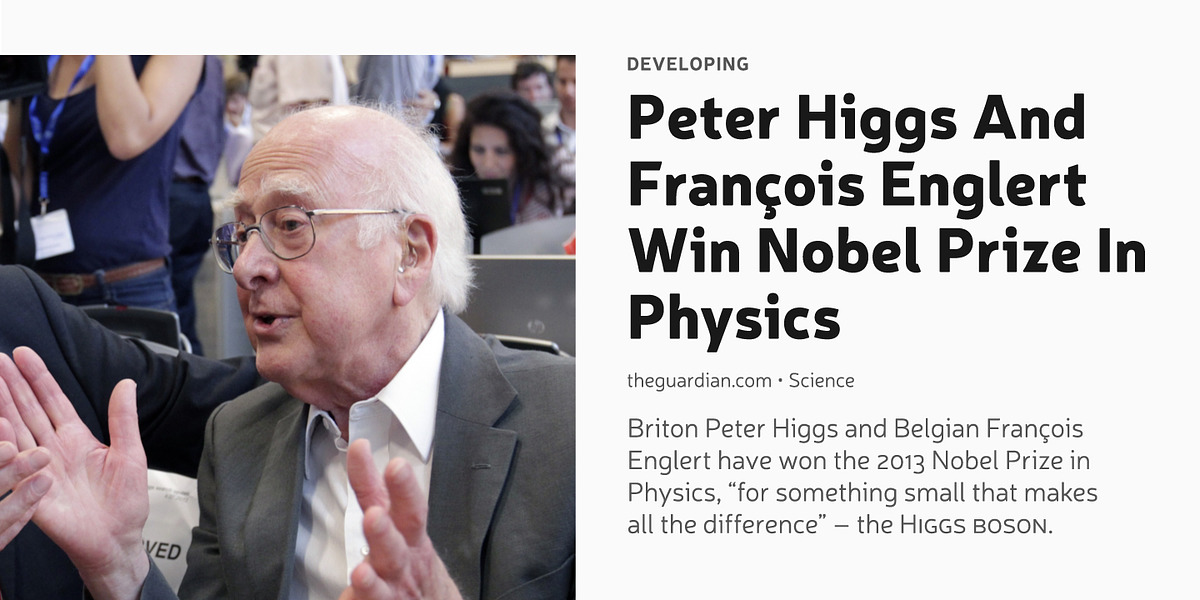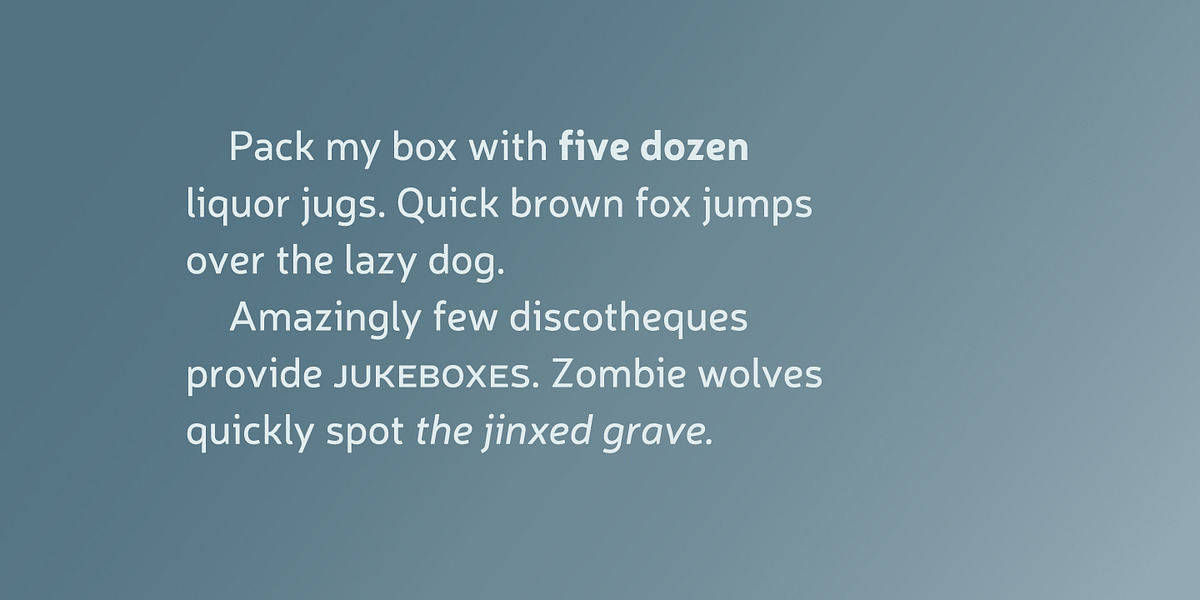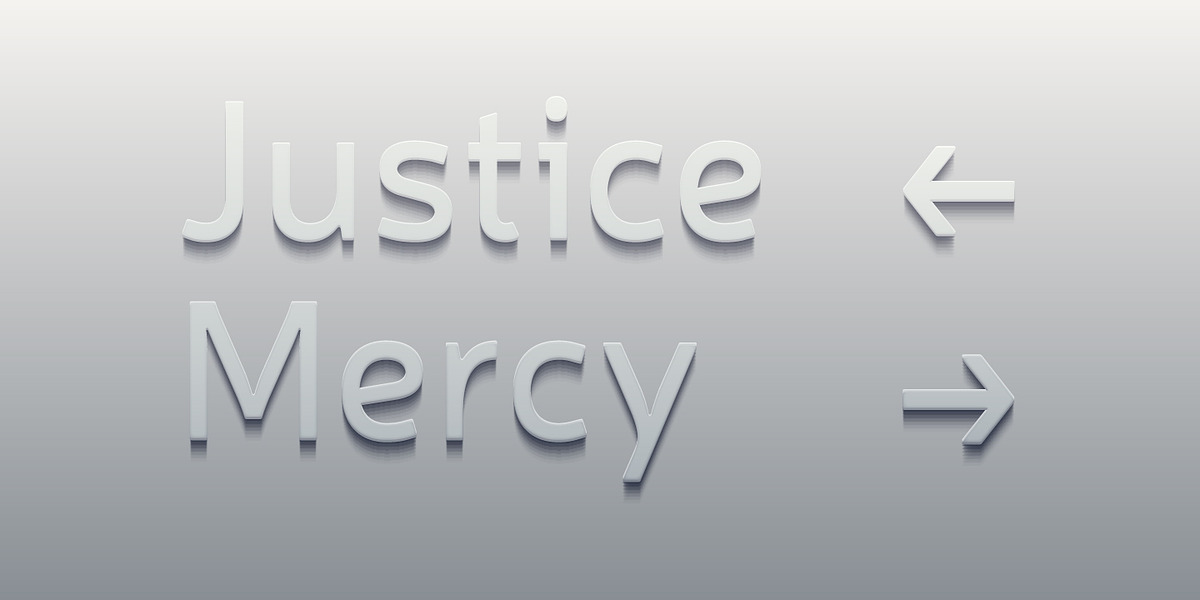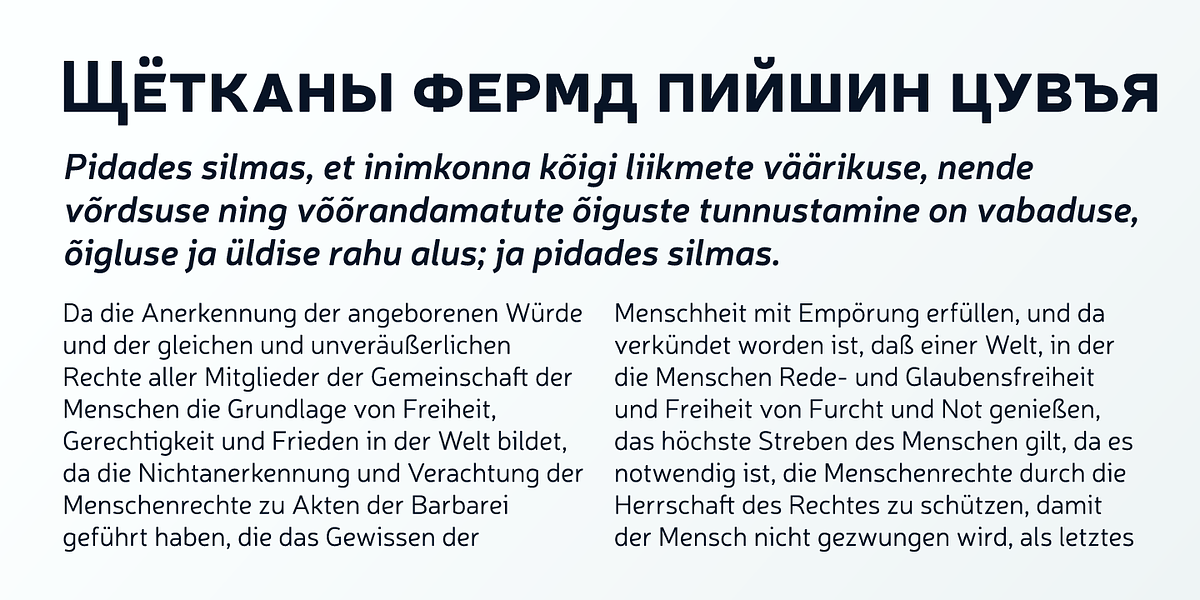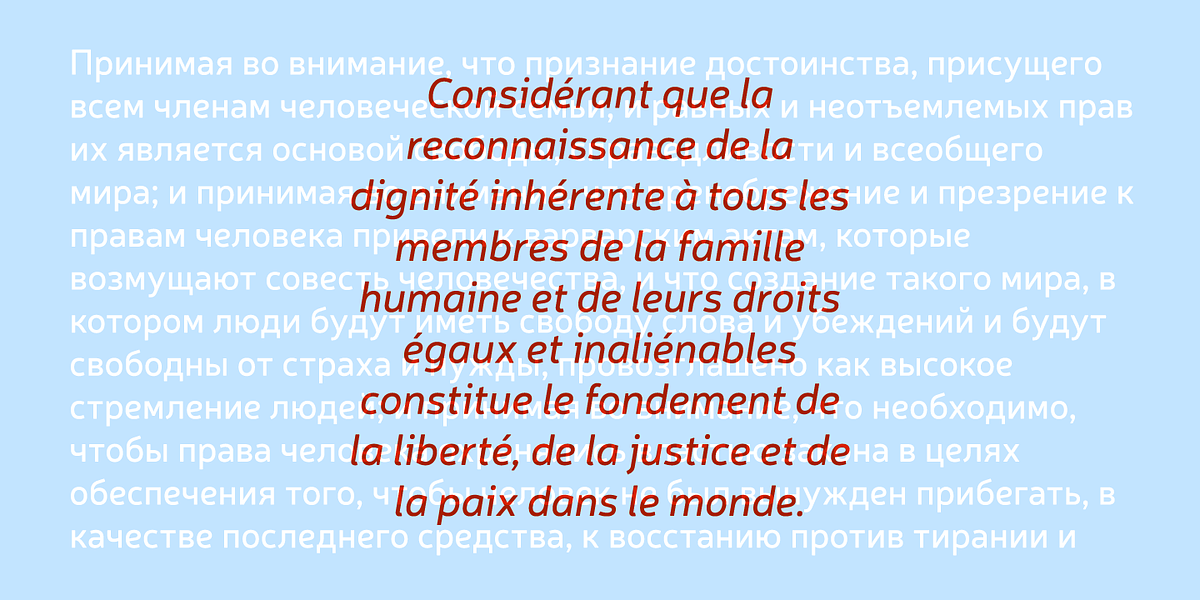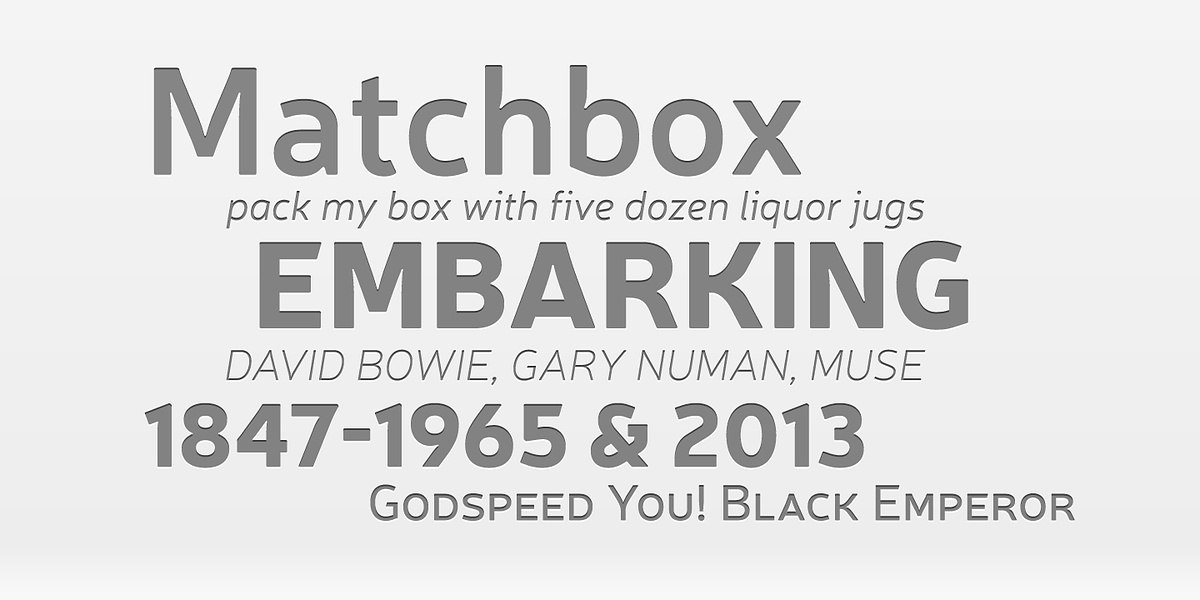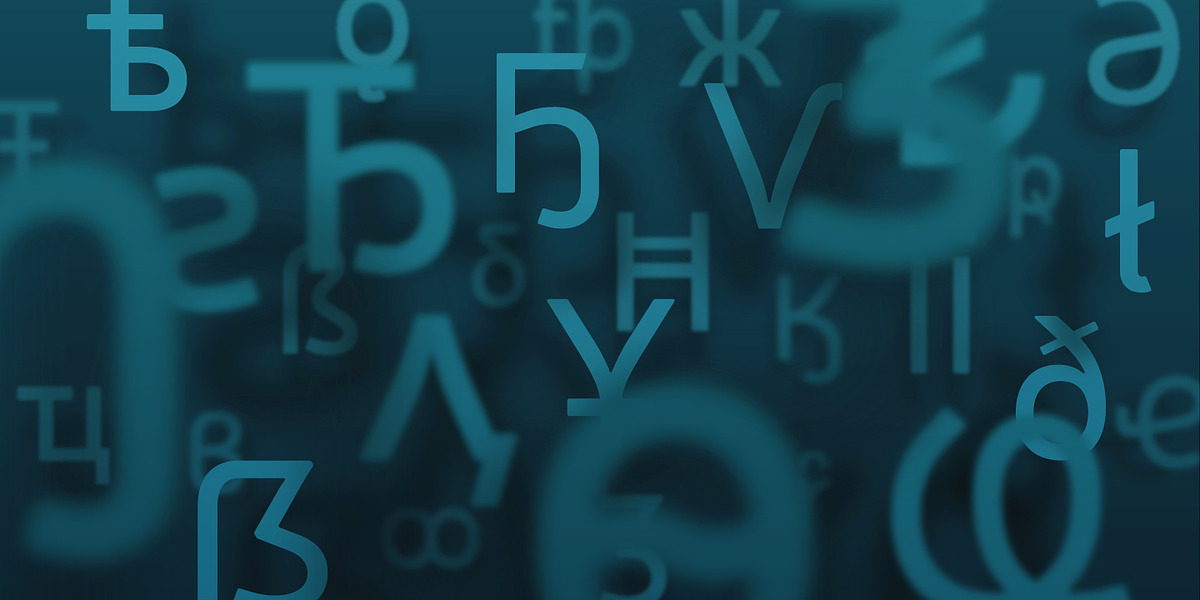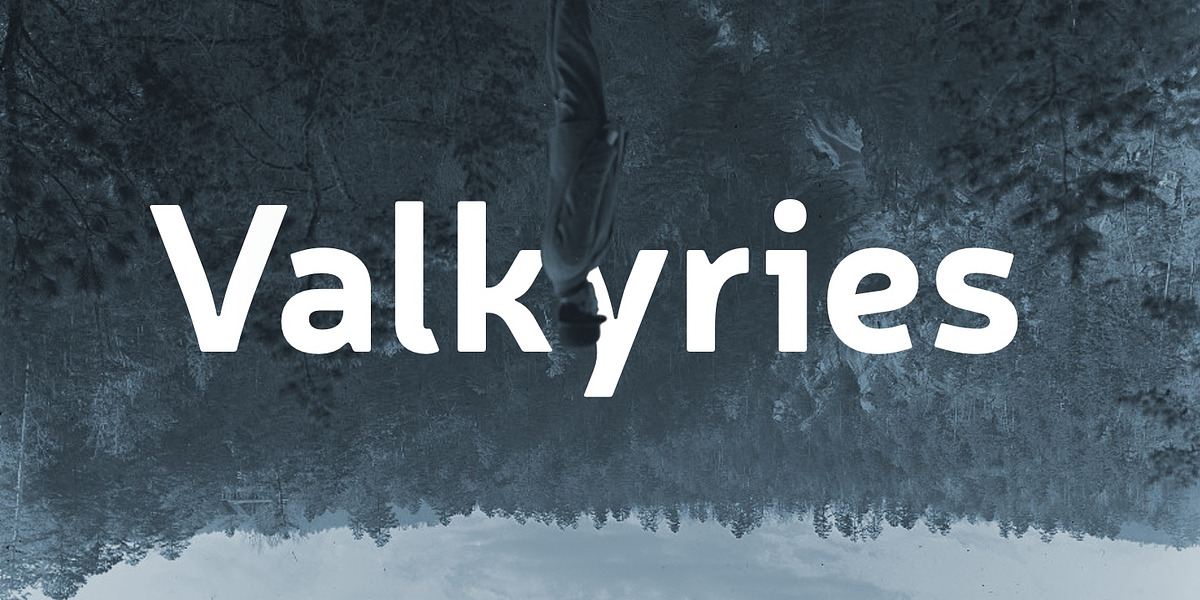
Neris
Neris is a neo-humanist sans serif designed for display purposes. Its distinctive features include a slanted 'e', a semi-serif 'i', stylized ink traps, and curved sharp joints. These elements contribute to its modern and impactful appearance, making it suitable for headlines, titles, and short quotes.